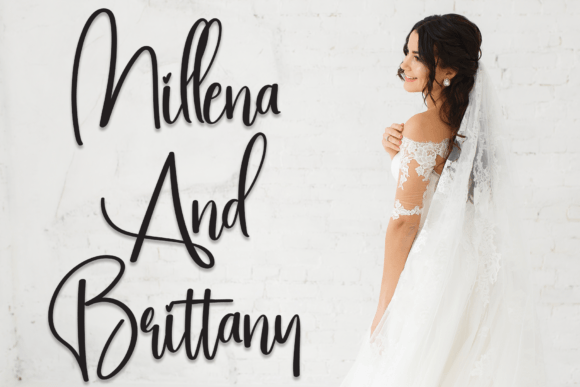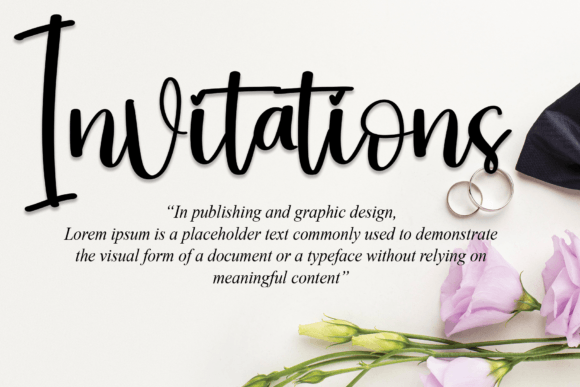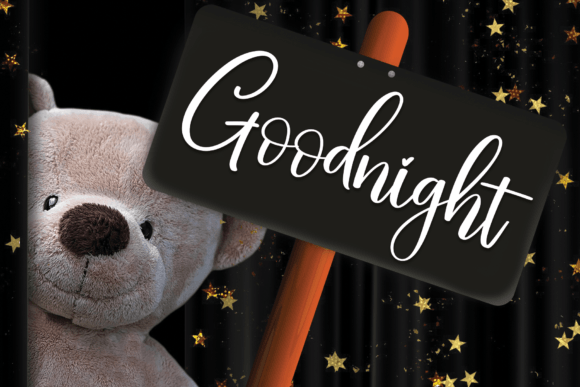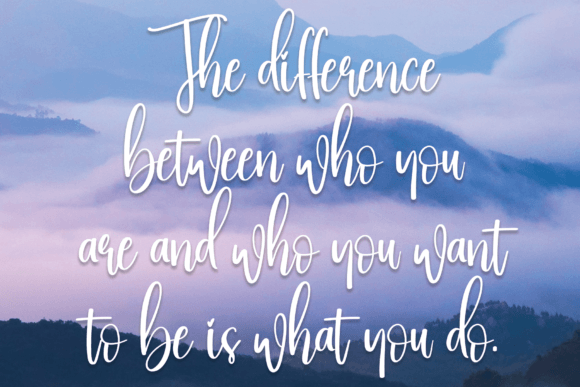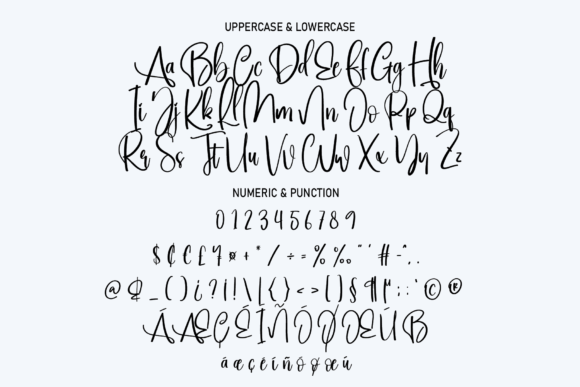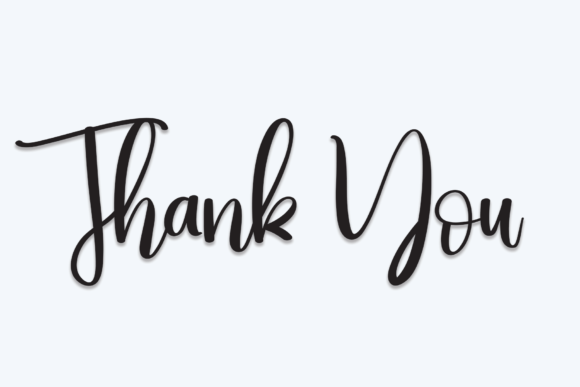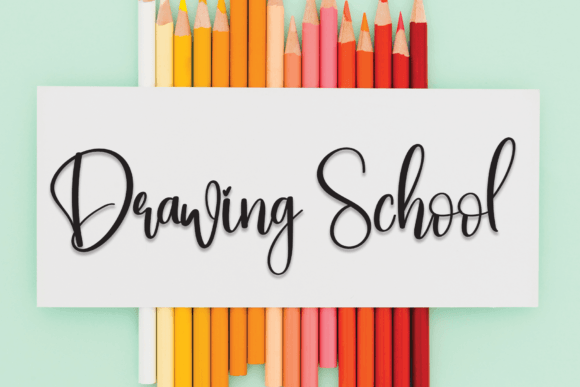
Stay Work Font
The Stay Work Font Download is a cool and neat handwritten script that combines elegance with modern design. Its flowing calligraphic details make it versatile for a wide range of creative applications. Whether you are designing wedding invitations, logos, posters, or digital content, Stay Work delivers sophistication while staying fresh and contemporary.
A Stylish Calligraphic Typeface
The Stay Work script font merges classy handwritten charm with balanced calligraphic strokes. As a result, it feels refined yet modern. Furthermore, its versatile design ensures that it adapts beautifully across personal and professional projects.
Stationery projects demand warmth and elegance. The Stay Work Font is perfect for wedding invitations, thank-you notes, greeting cards, and event announcements. Because of its polished handwritten flow, each piece of stationery feels unique and memorable. In addition, it elevates every message with timeless beauty.
Branding and Logo Design with Stay Work Font
Typography communicates brand identity clearly. The Stay Work handwritten font works wonderfully for boutique logos, product packaging, and creative campaigns. Its mix of elegance and modern rhythm makes it especially fitting for lifestyle, fashion, and handmade industries.
Posters, Editorials, and Display Projects
The Stay Work Font Download also shines in posters, magazines, inspirational quotes, and book covers. Its handwritten charm maintains readability while adding an artistic feel. Consequently, it is an excellent choice for designers who want to balance clarity with style.
Digital Content and Social Media
In the digital space, fonts must capture attention quickly. The Stay Work typeface integrates seamlessly into Instagram posts, Pinterest graphics, YouTube thumbnails, and blogs. Because of its modern handwritten rhythm, it makes digital designs more stylish and eye-catching.
Why Designers Choose Stay Work Typeface
Designers appreciate fonts that combine usability with beauty. The Stay Work handwritten script offers a fresh modern look while maintaining elegance. Moreover, its timeless character ensures that it remains a reliable option for future creative projects.
Add Contemporary Elegance to Your Projects Today
If you are searching for a handwritten script that feels classy, stylish, and versatile, the Stay Work Font Download is the perfect choice. From invitations and greeting cards to logos, posters, and digital branding, it adds timeless handwritten beauty to your work. Finally, download Stay Work today and bring elegant creativity to your designs.